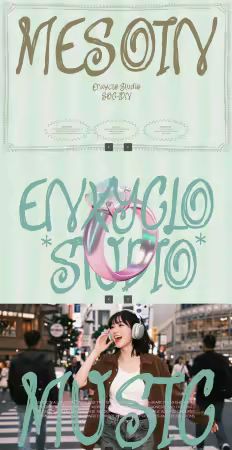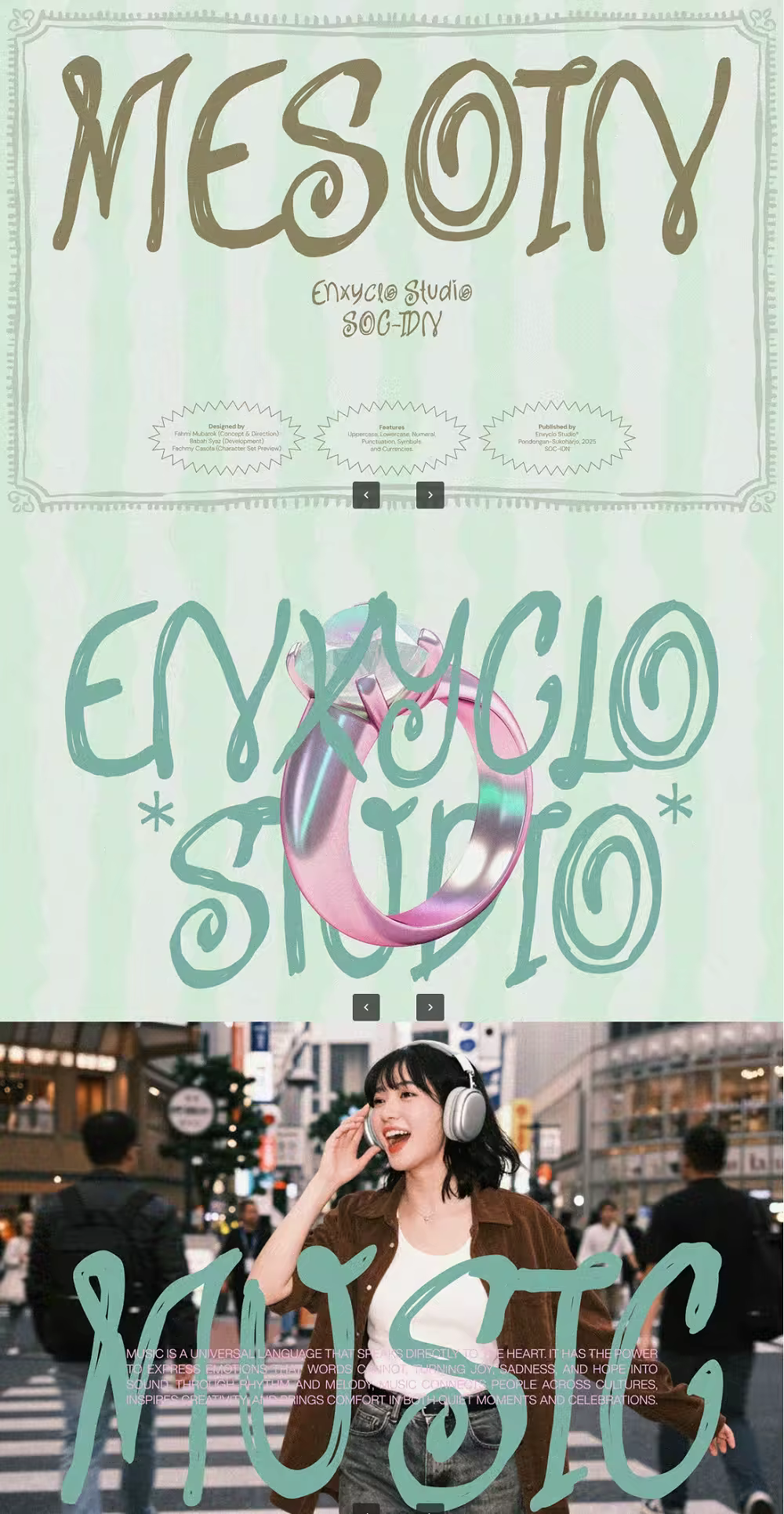
MESOIN — Quirky Raw Whimsical Font
MESOIN is a quirky and whimsical handdrawn font that celebrates the beauty of being imperfect, unfinished, and raw. With its playful handwritten strokes and bold personality, this font brings a cute yet modern aesthetic that feels fresh, expressive, and undeniably unique.
Each letter is crafted to look organic and spontaneous, giving MESOIN a lively character that works perfectly for logos, branding, headlines, and posters. Designed for creative agencies and bold visual storytellers, MESOIN adds charm, warmth, and originality to every layout—making your message feel human, fun, and memorable.
If you’re looking for a font that stands out with personality and creative confidence, MESOIN delivers a delightful balance of playful imperfection and modern design.
FEATURE
Uppercase letters
Lowercase letters
Punctuation marks
Symbol set
Currency symbols
PERFECT FOR
Creative branding and logo design
Playful posters and bold headlines
Creative agency projects
Cute and aesthetic social media visuals
Children-friendly or lifestyle branding
Artistic editorial layouts
Handmade product packaging